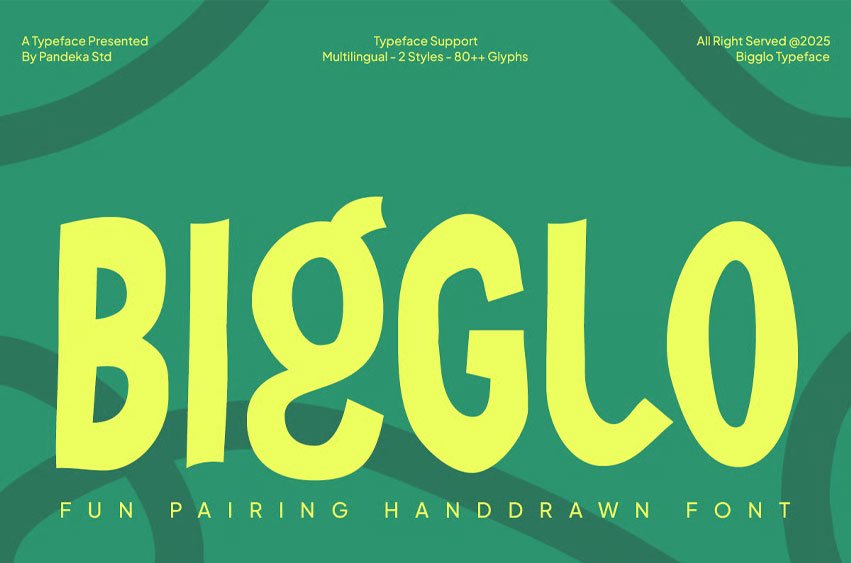
Bigglo Font is a lively and expressive hand-drawn font duo that brings playful character to every design. With its organic strokes and quirky forms, Bigglo captures the energy of doodles and sketches — perfect for art-themed posters, creative branding, packaging, children’s books, or any design that needs a fun and spontaneous feel.
This font comes in 2 styles: Regular & Outline, making it ideal for creative pairing and layered typography. It includes uppercase, lowercase, numbers, punctuation, and multilingual support. Whether you want bold headlines or outlined details, Bigglo adds a fresh, artistic, and dynamic personality to your work.
- 2 Style: Regular and Outline
- Full Character Set: Uppercase, lowercase, numbers, symbols, and punctuation